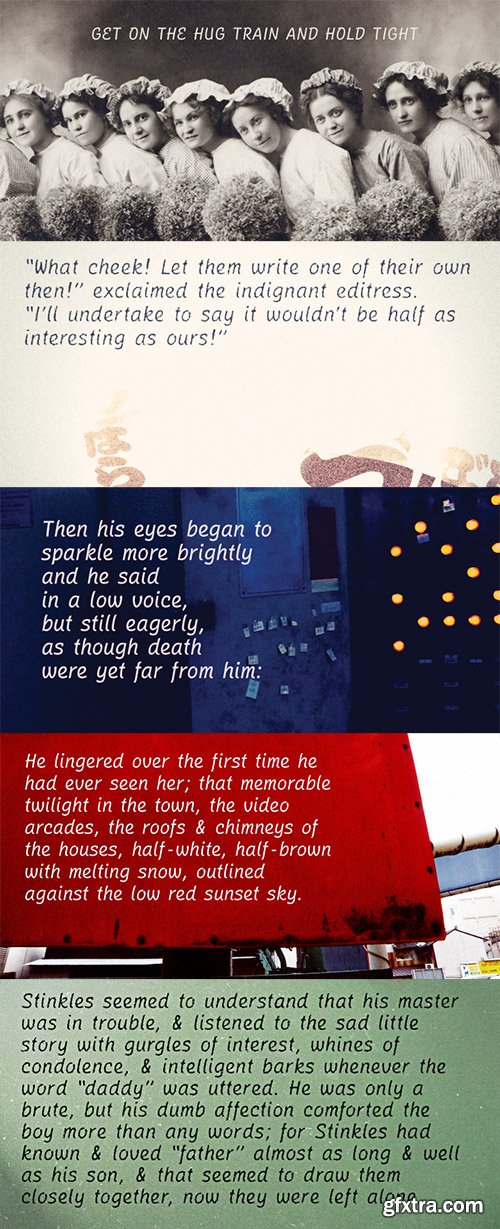
Although Catwing has a typewritten feel, it’s actually proportionally spaced.
- Unlike most scripts, you're encouraged to break the rules and type in CAPITALS. Oh dear, really? Yes! Catwing Fuzz is, as its name would suggest, somewhat fuzzy. OpenType savvy applications will shuffle letters to create a more random looking fuzz effect. So what’s the point? Catwing gives you a warm, typewriter script feeling without the disadvantages or working with a monospaced font. It was designed for use in subtitles and, as far as scripts go, it’s very readable and even suitable for body copy.